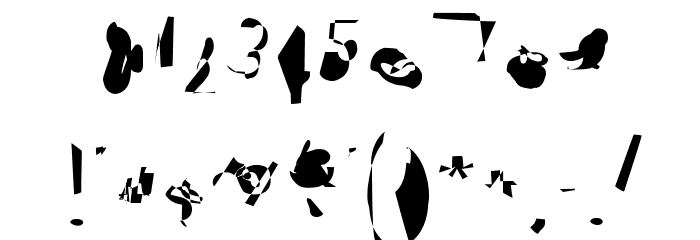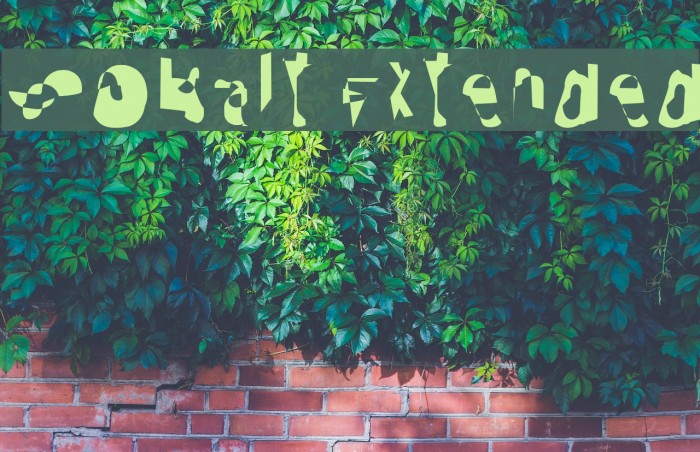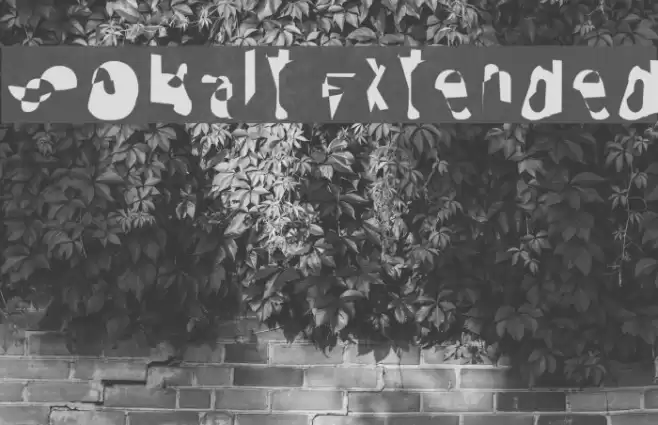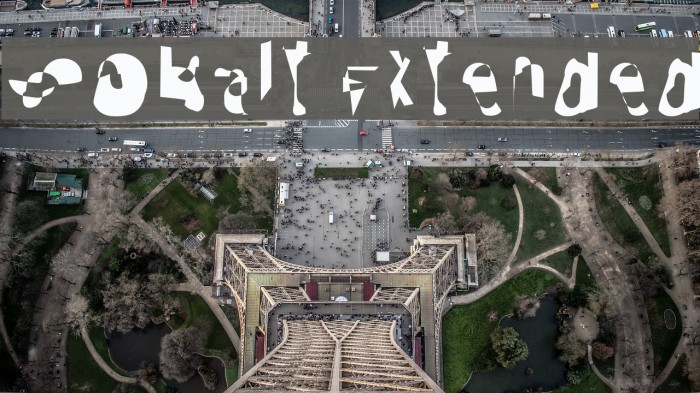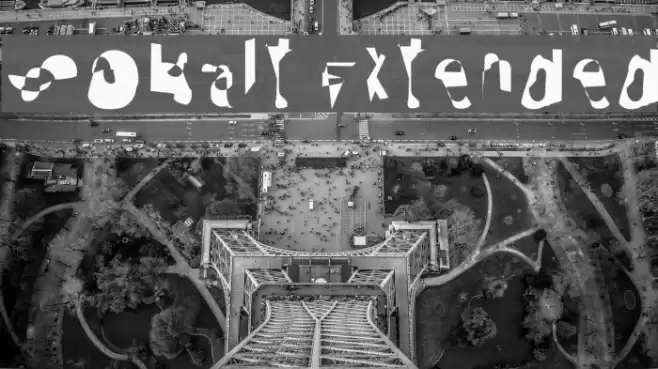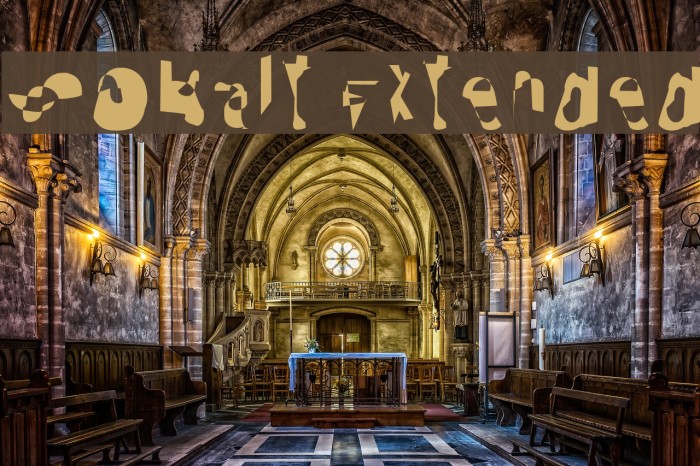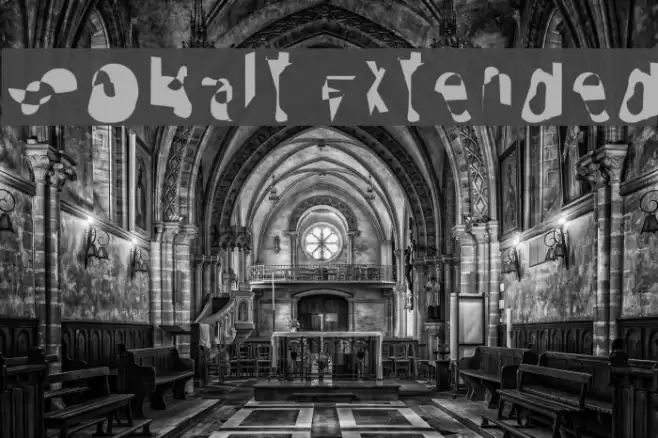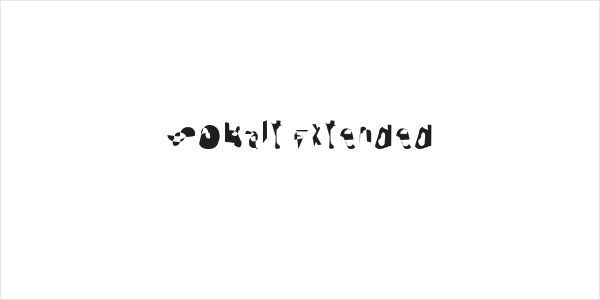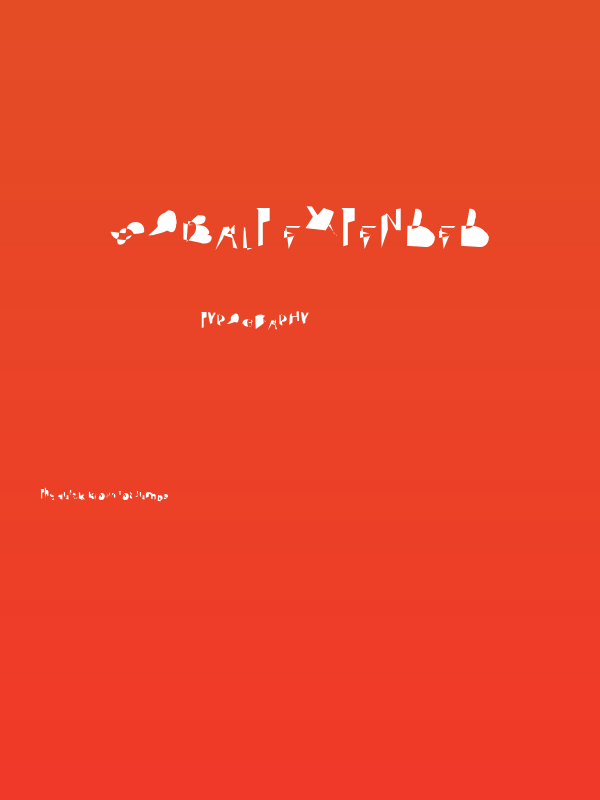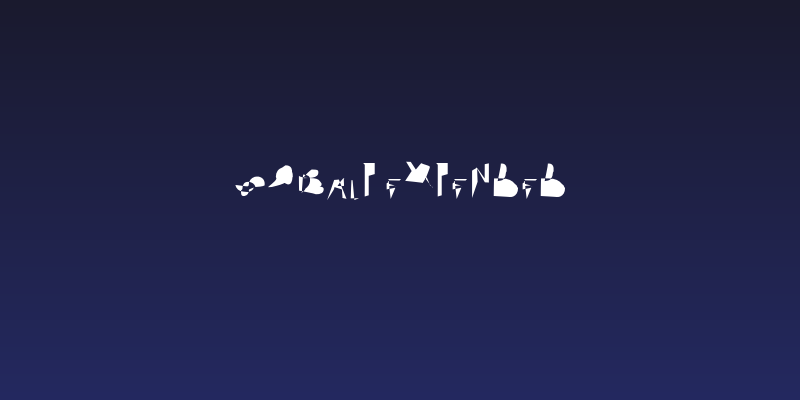
Cobalt Extended Font
Cobalt Extended Description
This font exhibits a highly abstract and fragmented style, characterized by its bold and irregular shapes. The letters appear as if they have been cut from paper and reassembled, creating a dynamic and chaotic visual effect. The uppercase and lowercase letters maintain this fragmented aesthetic, with each character displaying unique cuts and angles. Numbers and special characters follow the same design principle, adding to the overall disjointed and artistic appearance. This font is not suitable for body text due to its complexity but can make a striking impact in creative and artistic projects.
| Overall Style | Modern, Abstract |
| Proposed Projects | Ideal for artistic projects, album covers, posters, and experimental design work. |